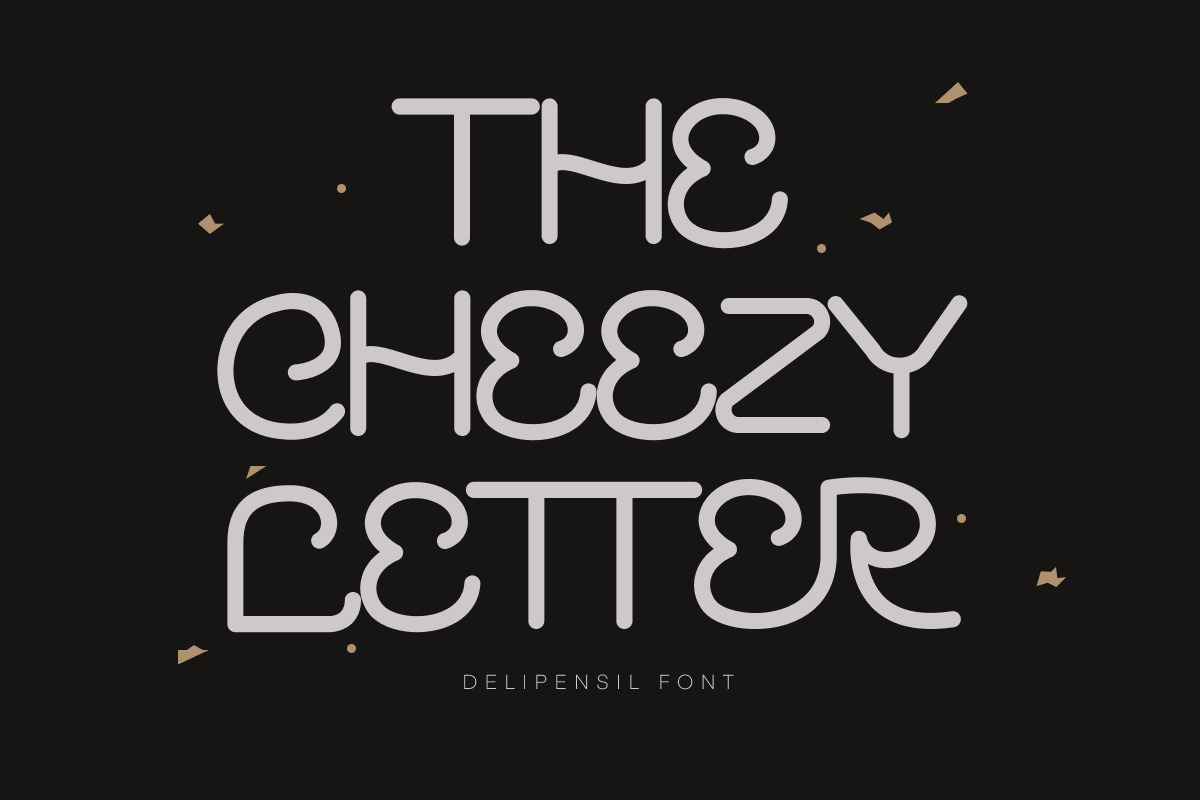
Cheezy - Rounded Modern Typeface
Bismillah, Introduction Cheezy - Rounded Modern Typeface
Beauty Serif font, clean classic and mindful , it combine in one font, use this font for anything beauty place for your logo, headline, cover book, magazine and many more
- Cheezy Ligature Ready